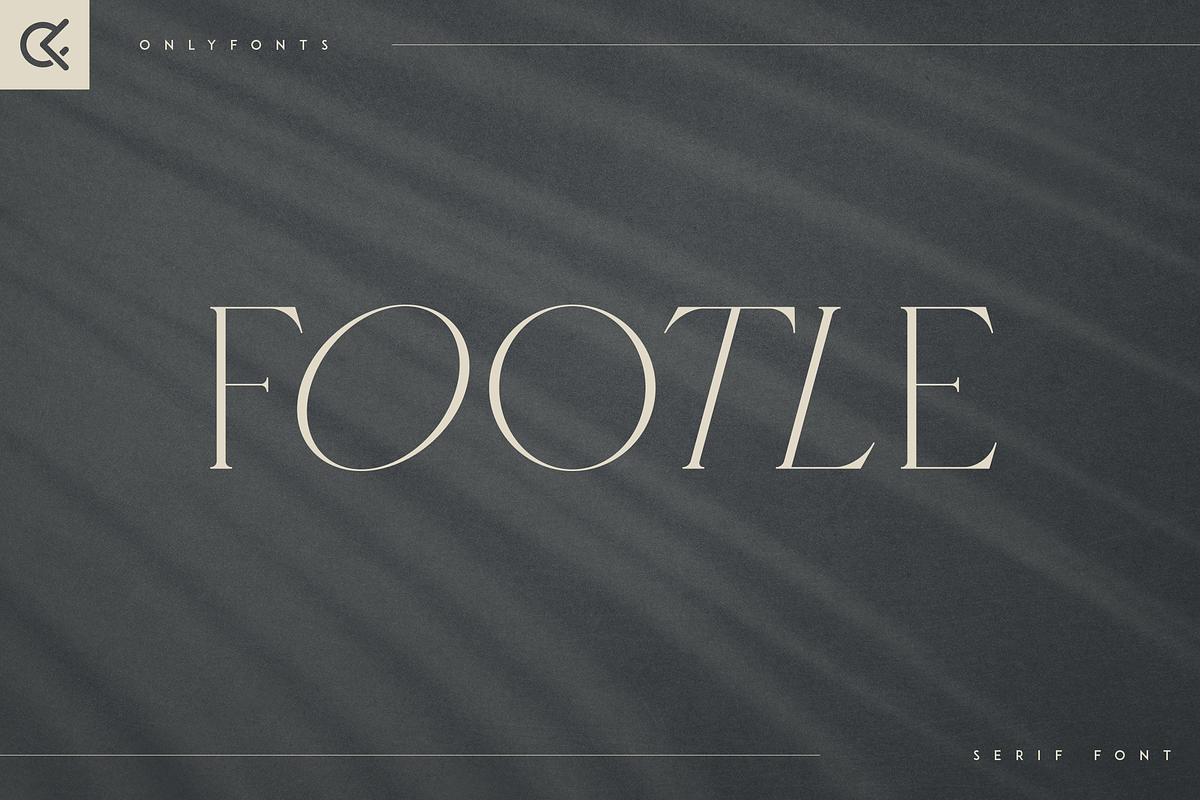
Footle gentle serif font Free Download
Footle Gentle Serif Font Free Download
You must purchase this font for commercial use. However, you can download it for free to test its elegant appearance and versatility. Footle Gentle Serif Font Free Download is a beautifully crafted serif typeface that blends classic charm with contemporary sophistication, making it an excellent choice for designers looking to create timeless logos, stylish branding materials, wedding invitations, magazines, and professional websites. Its gentle curves and clean lines convey warmth and readability, perfectly balancing traditional elegance with a modern twist. Whether you’re designing print materials or digital content, Footle provides an inviting and refined aesthetic sure to enhance visual appeal. Footle Gentle Serif Font Free Download excels at creating harmony across various design contexts, from minimalist layouts to elaborate typographic compositions. This versatile serif font ensures your designs convey professionalism and authenticity, resonating with both classic and modern audiences. Enhance your next creative project and captivate your audience effortlessly with Footle's graceful style. Try Footle Gentle Serif Font Free Download today and discover how it can elevate your design work, bringing elegance and clarity to every visual element.